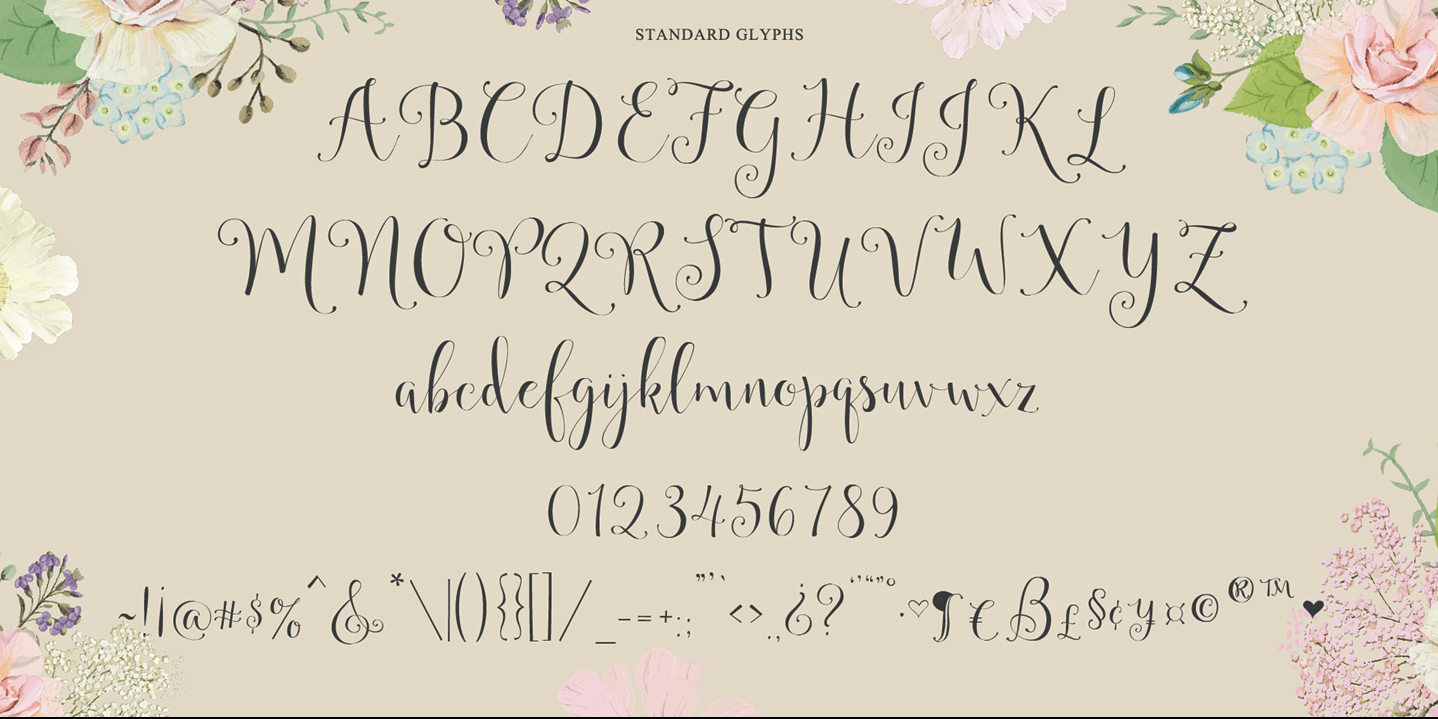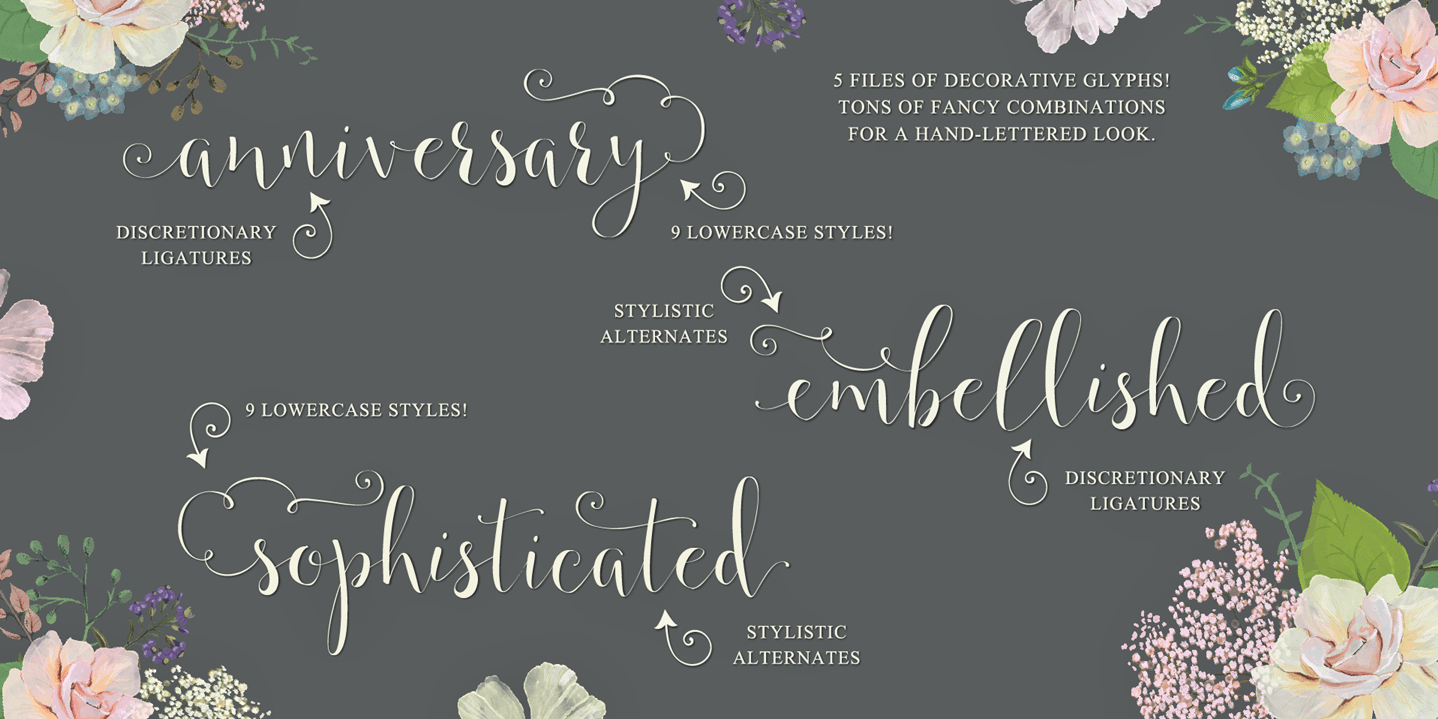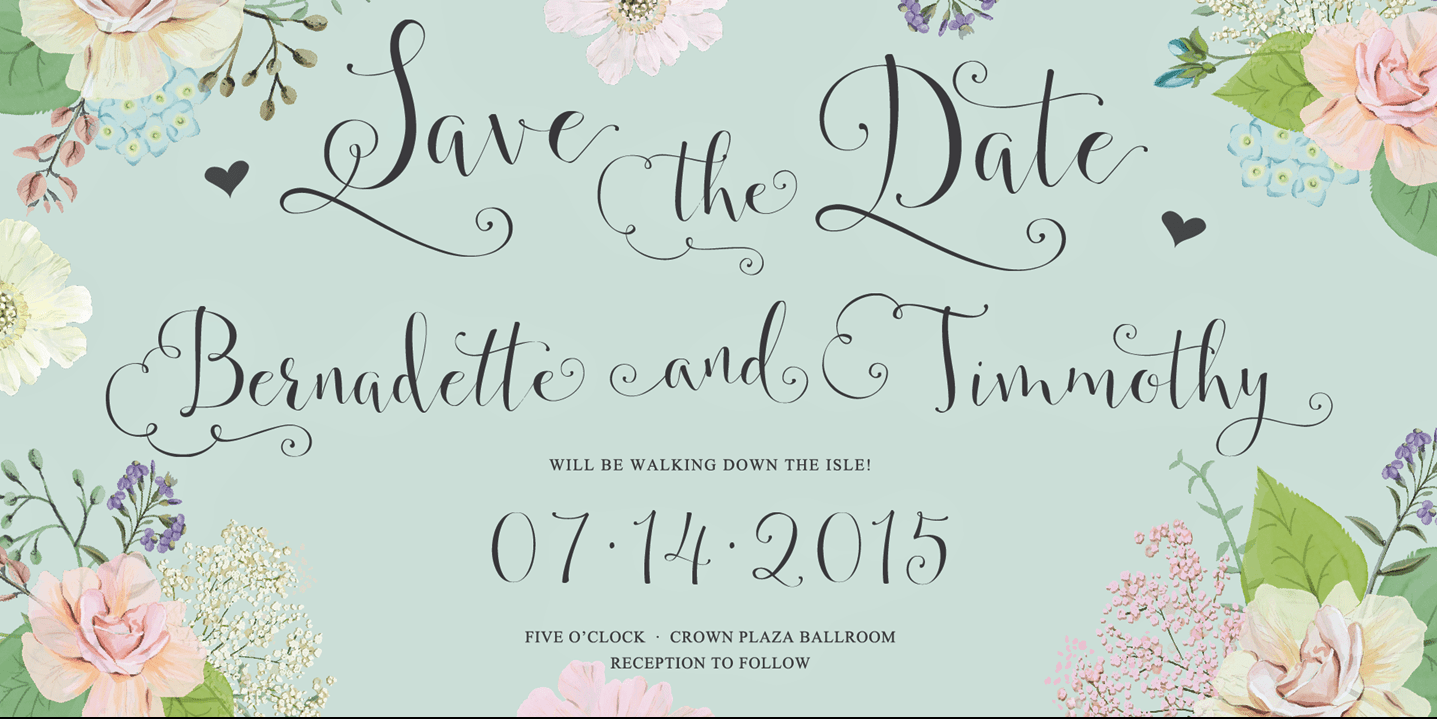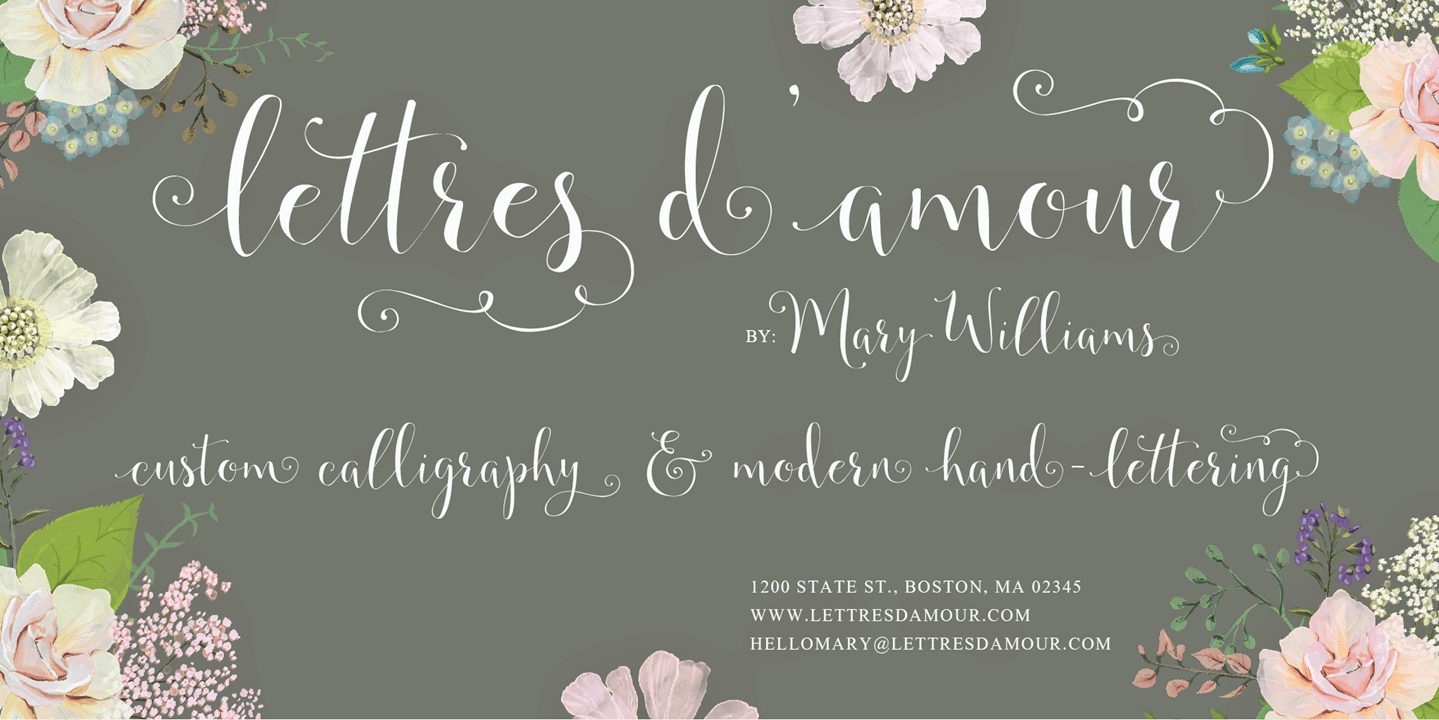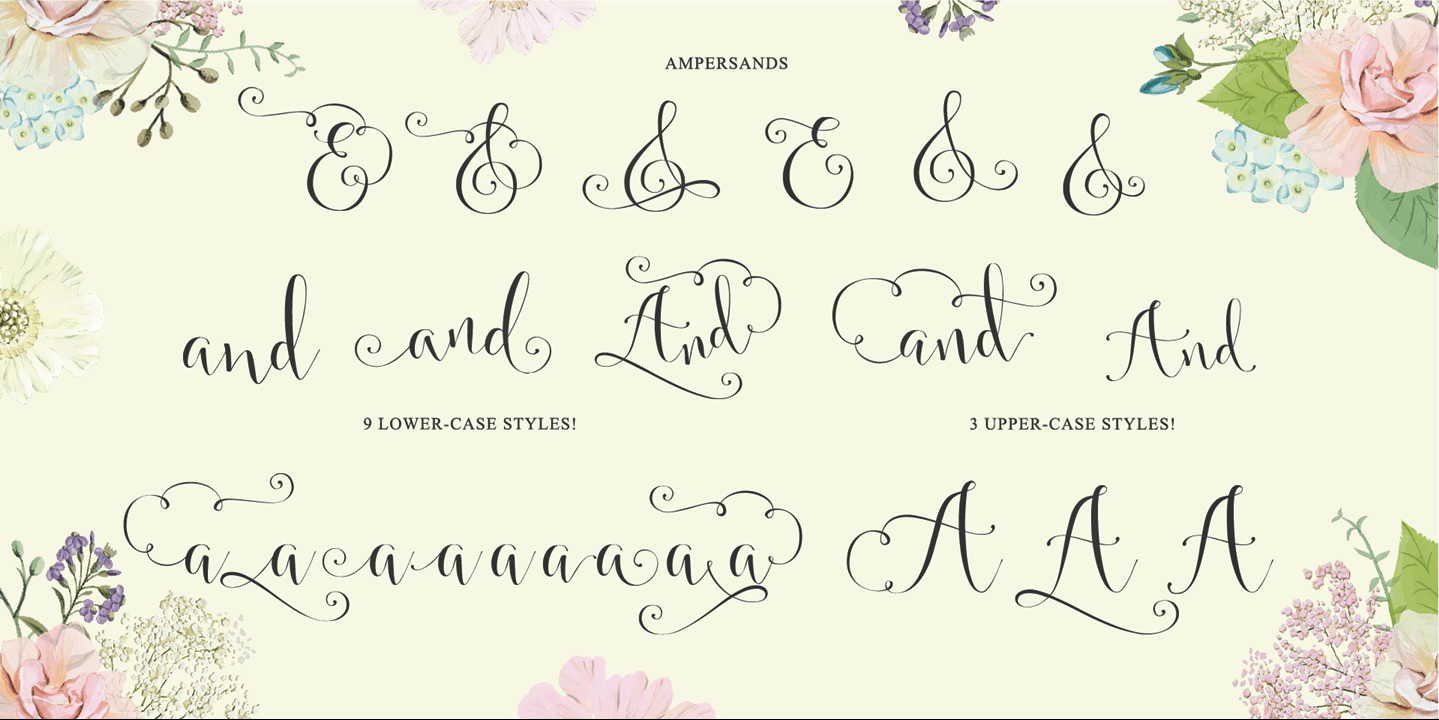
About Annabella
Meet Annabella. Elegant and sweet hand-lettered calligraphy style script. She\’s soon to be your favorite for weddings, stationary, logos and more. 9 Lower-case styles 3 Upper-case styles Additional Ampersands and Common Letter Combinations Multi-lingual…